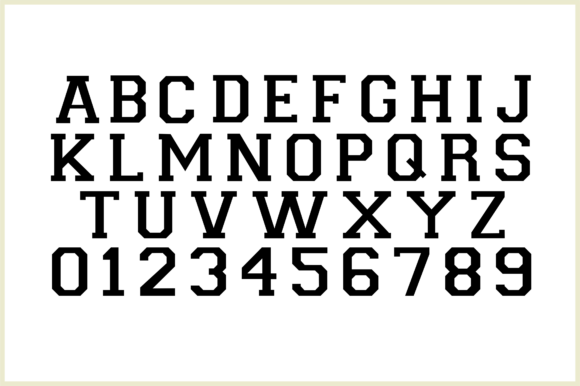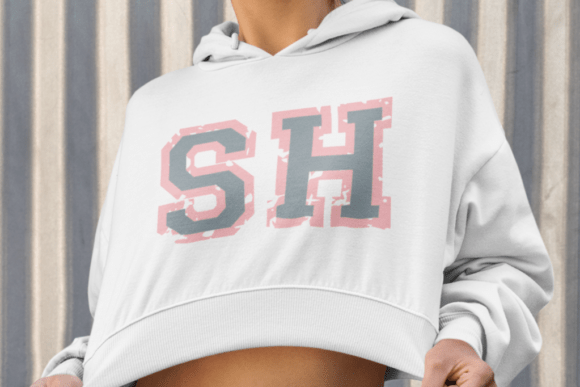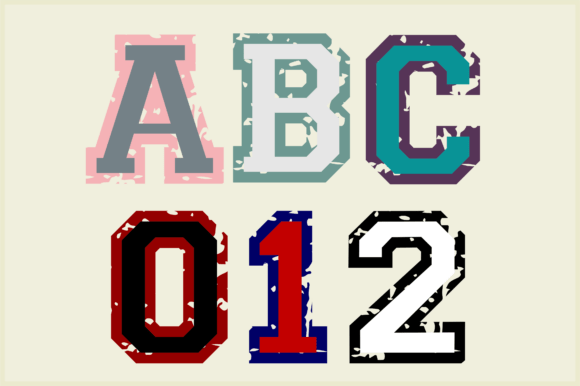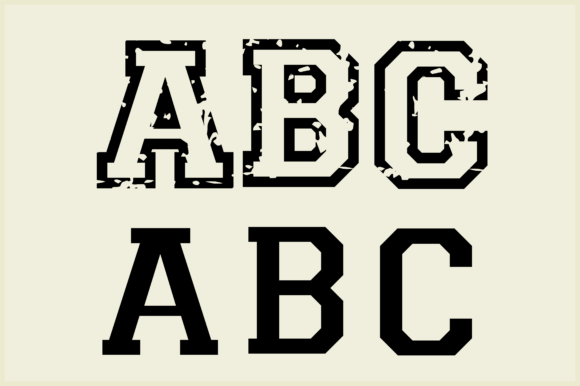
College Grunge Font
College Outline Grunge & Slab Serif is a duo of classic varsity-style fonts. The first features a rough, distressed texture that brings a vintage and energetic feel to any design. The second is a clean and bold slab serif, perfect for logos, posters, apparel, and branding projects. Together, they create a powerful combination for sports, retro, and typographic designs. Available in OTF, SVG, PNG, DXF, EPS formats for various creative applications.